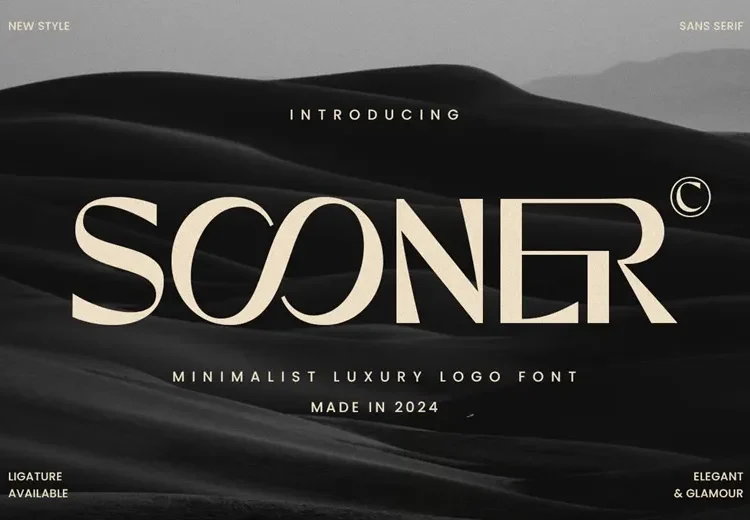
Sooner Font
Sooner is a luxury logo font crafted in a minimalistic style to exude an aura of sophistication and elegance. With its sleek and serif-free design, Sooner is ideal for luxury brands, contemporary logos, and high-end publications, seamlessly blending modernity with timeless class. The font’s understated simplicity makes it a perfect choice for creating a refined and polished brand identity.
Whether designing labels for high-fashion items, packaging for premium products, or formal business cards, Sooner brings an unmatched sense of elegance and precision to your work. Its clean lines and sharp minimalism ensure that your message is delivered with clarity, without being overwhelming, making it a stylish yet understated choice.
The clear and concise structure of Sooner makes it not only fashionable but also highly versatile. It conveys sophistication while maintaining readability, ensuring your brand’s message remains impactful and memorable.